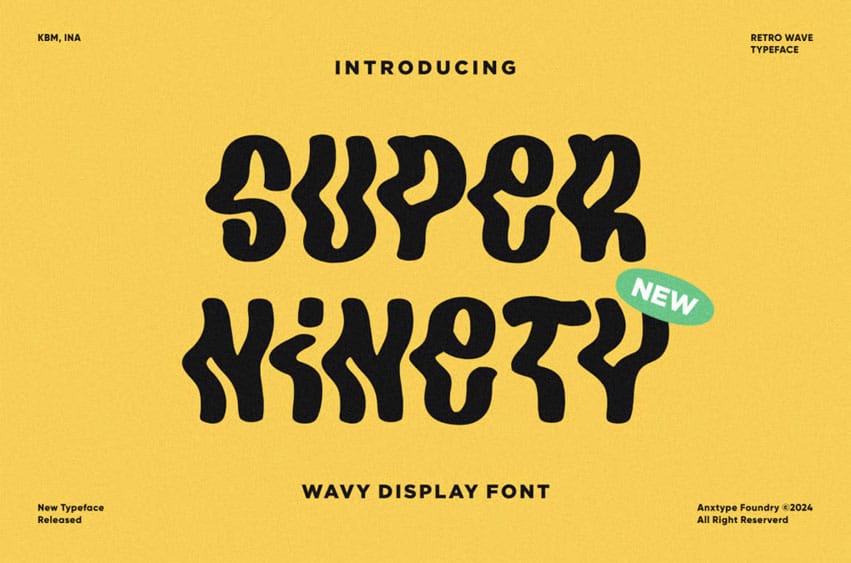
AT Super Ninety Font
AT Super Ninety Font is a uniquely distinctive font that pulsates with undulating, groovy waves. Let this creative treasure embellish your branding endeavors or punctuate any design project with its exciting, dynamic energy.
Make waves with Super Ninety – the seamless blend of modern chic with vintage charm.